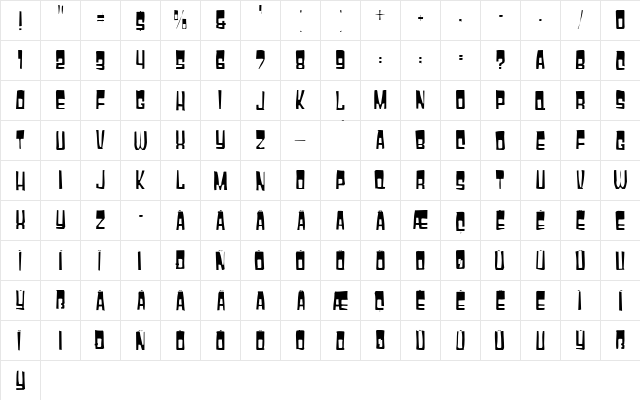
Gyparody Gaunt Regular
Design Context for Gyparody Gaunt Typeface
Gyparody Gaunt is a composed and adaptable typeface that performs quietly and consistently across a wide range of design contexts.